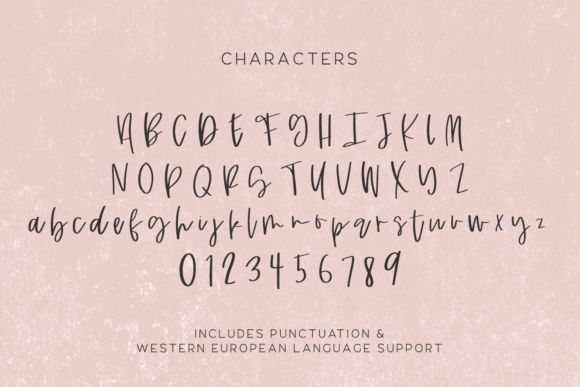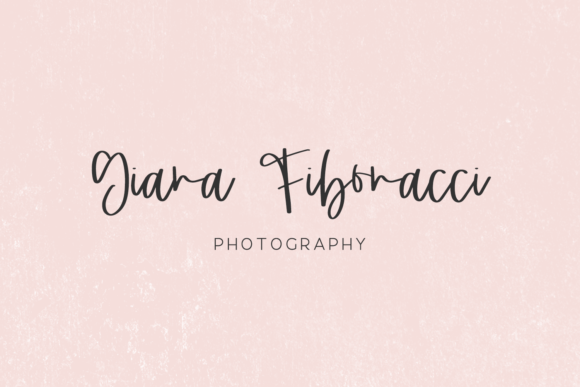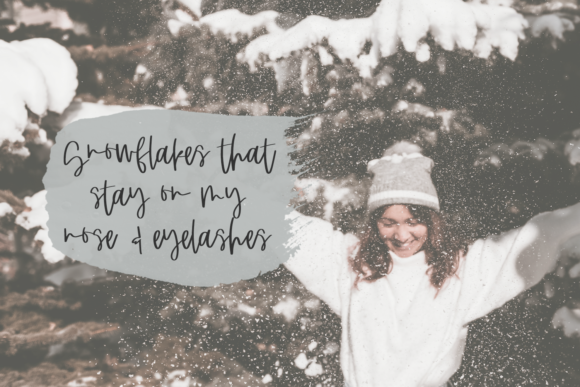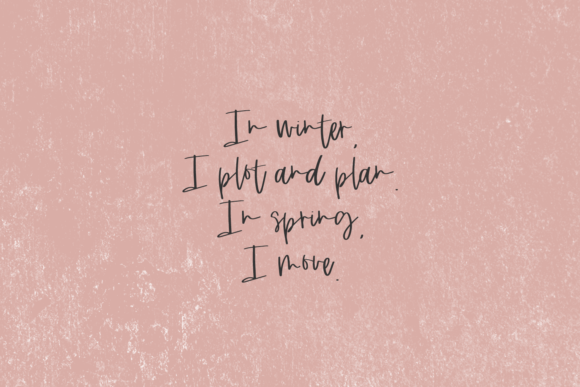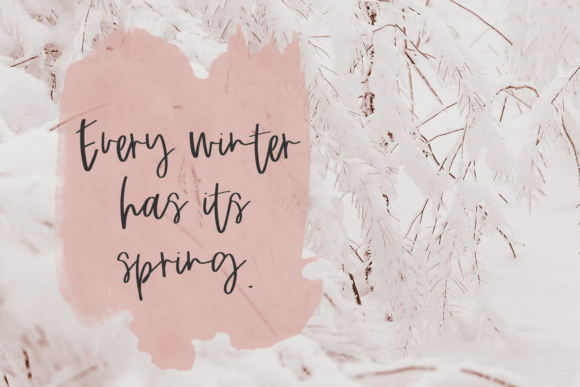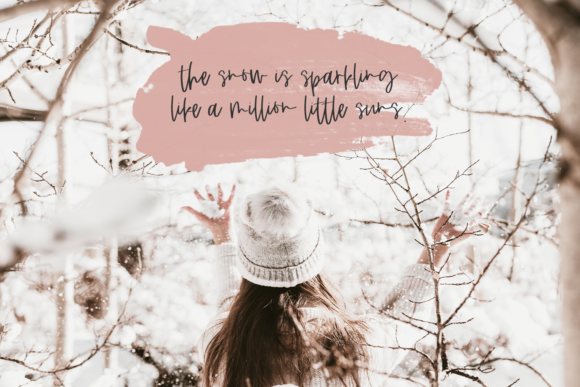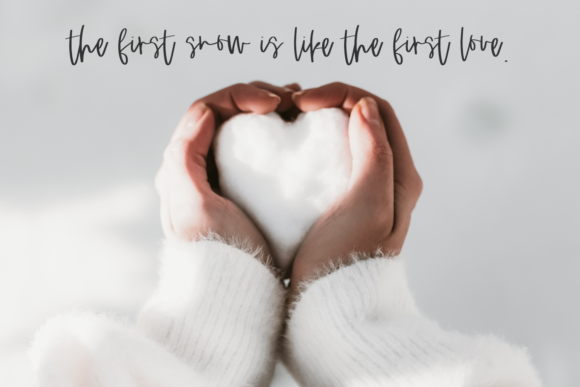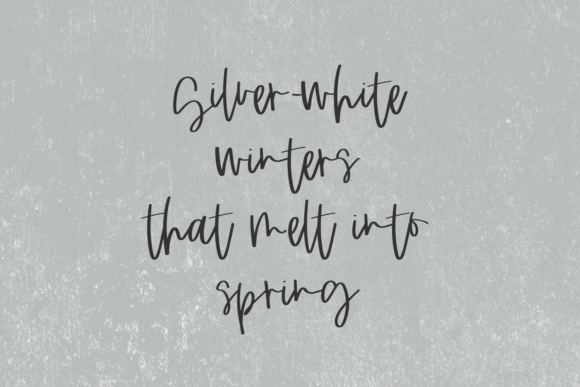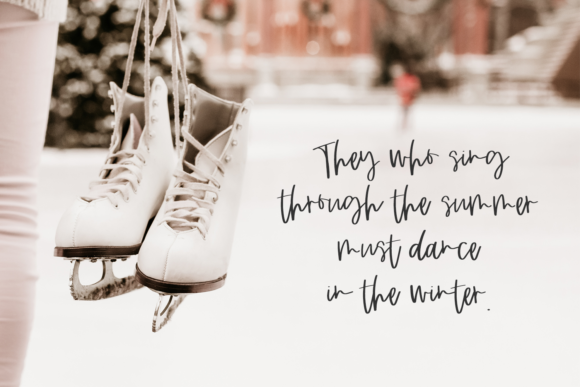
Linger Font
About Linger Font
Linger is a messy script font that adds an authentic handwritten feel to your crafts and designs. Linger Script is best for logos, branding, website designs, print design, header elements, social media graphics.